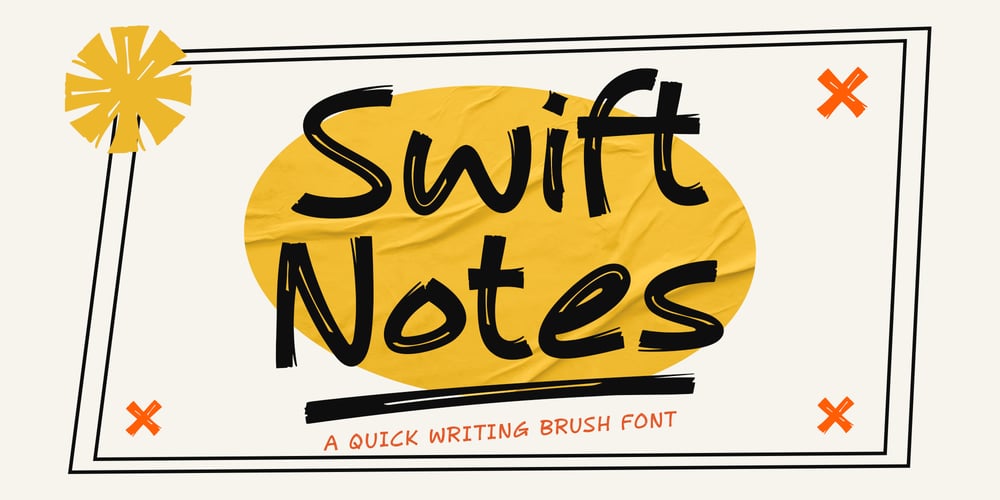
Swift Notes
Swift Notes font
Swift Notes Font Family was designed by Dwi Ahidian and published by Lemonthe. Swift Notes contains 1 styles and family package options. Swift Notes is a quick and energetic brush font with a dynamic handwritten style. Perfect for creative designs that want to create a spontaneous and full-of-character feel in logos, branding, posters, product designs, quotes, and much more.Quick Access Swash:Add number+underscore+number: (1_1, 2_2, 3_3, 4_4, 5_5)